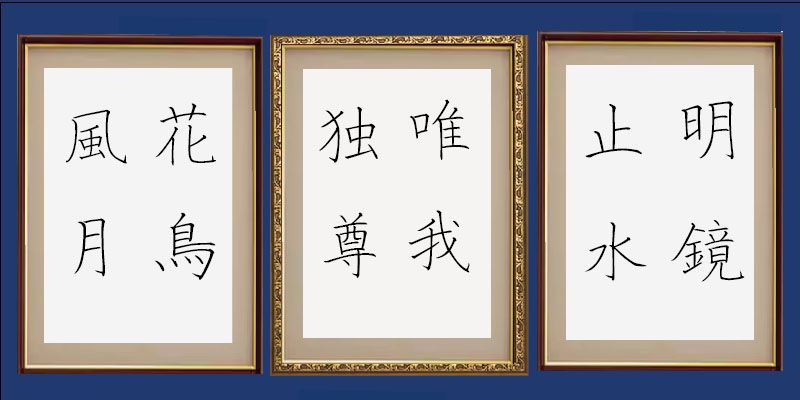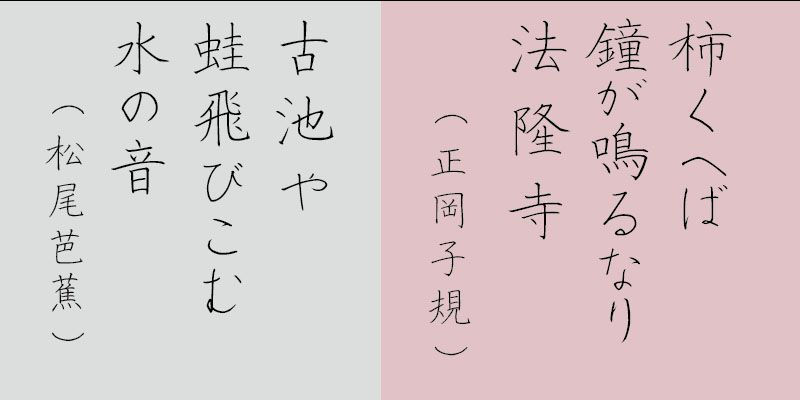
In this typeface, careful attention was paid to the harmony of the letterforms and strokes were hand-drawn, avoiding mechanistic treatment. It is a beautiful set of characters that can serve as a model for learning handwriting.
The alphanumeric characters, hiragana, and katakana characters included in each font in this typeface family are designed as proportional glyphs, each with its own unique character width.
With over 60 years of experience in calligraphy, Calligrapher Hakushu Nakamoto has created brush script fonts with beautiful and skillfully handwritten letter forms. He works as a professional calligrapher, offering custom services to meet a variety of client needs. By using Nakamoto’s designs, you will become more familiar with the art of traditional calligraphy.